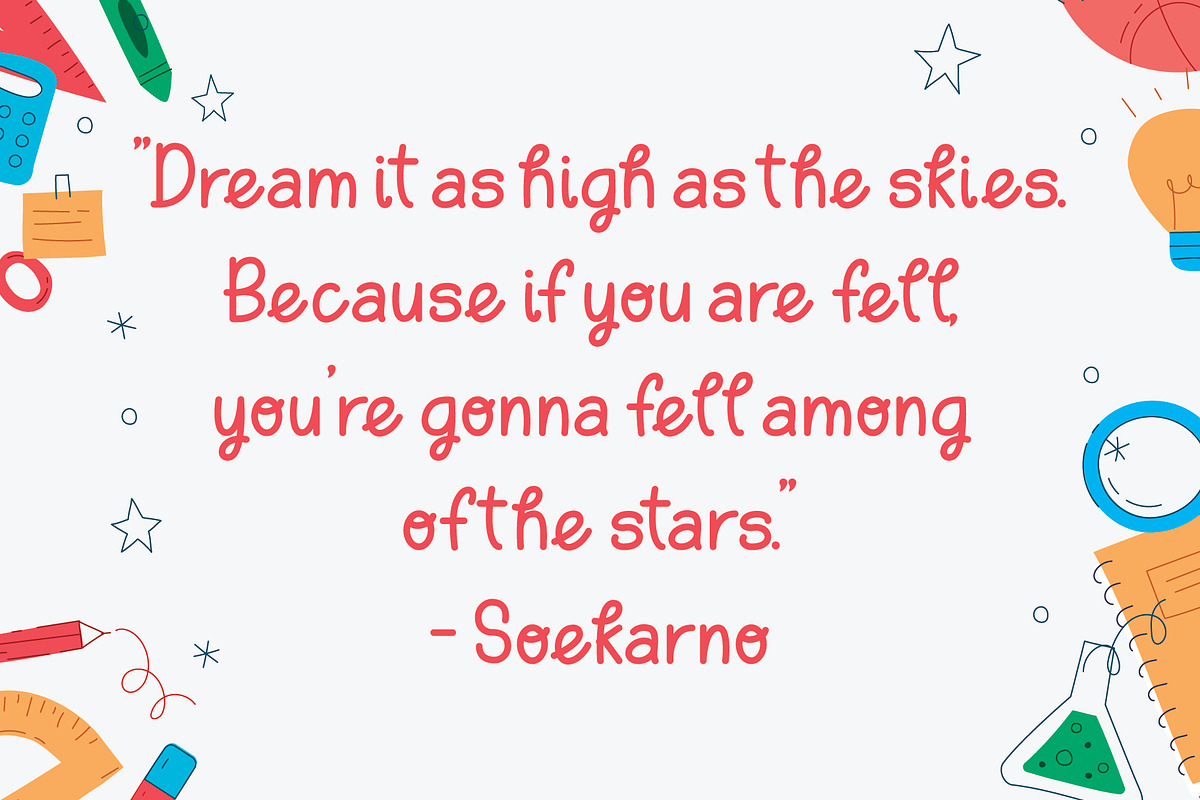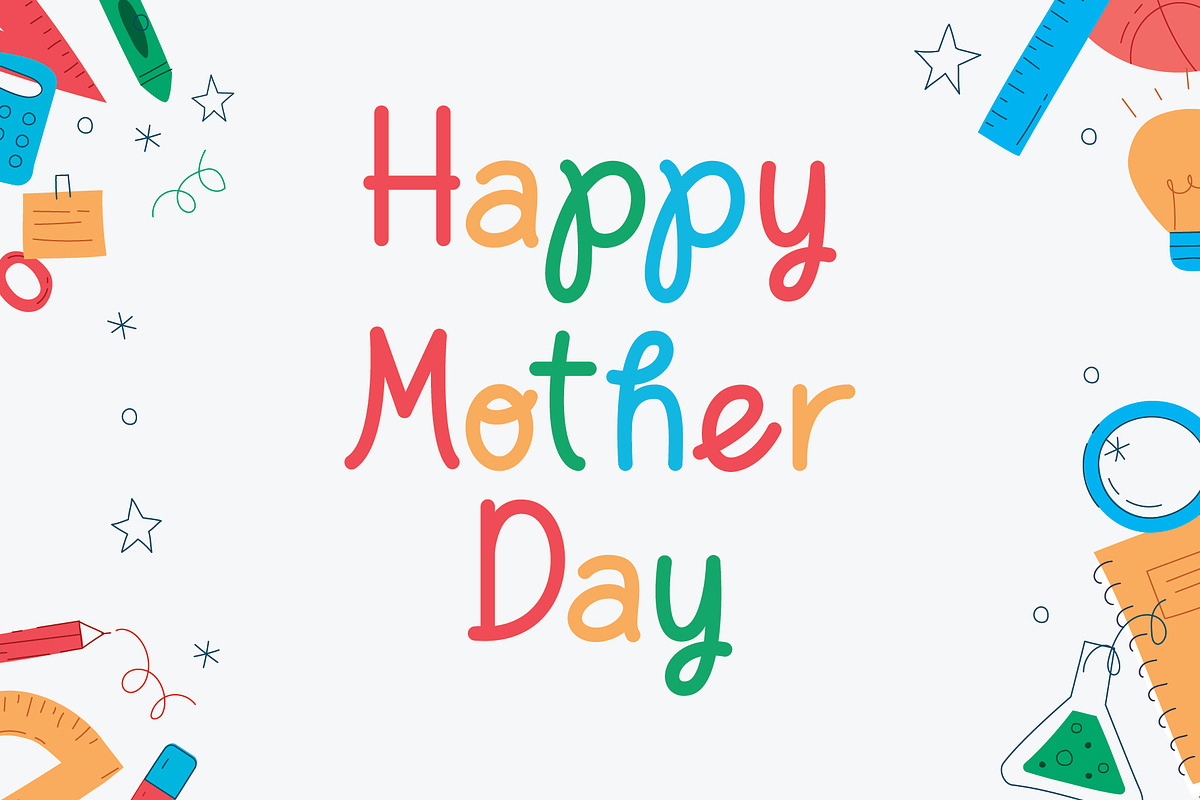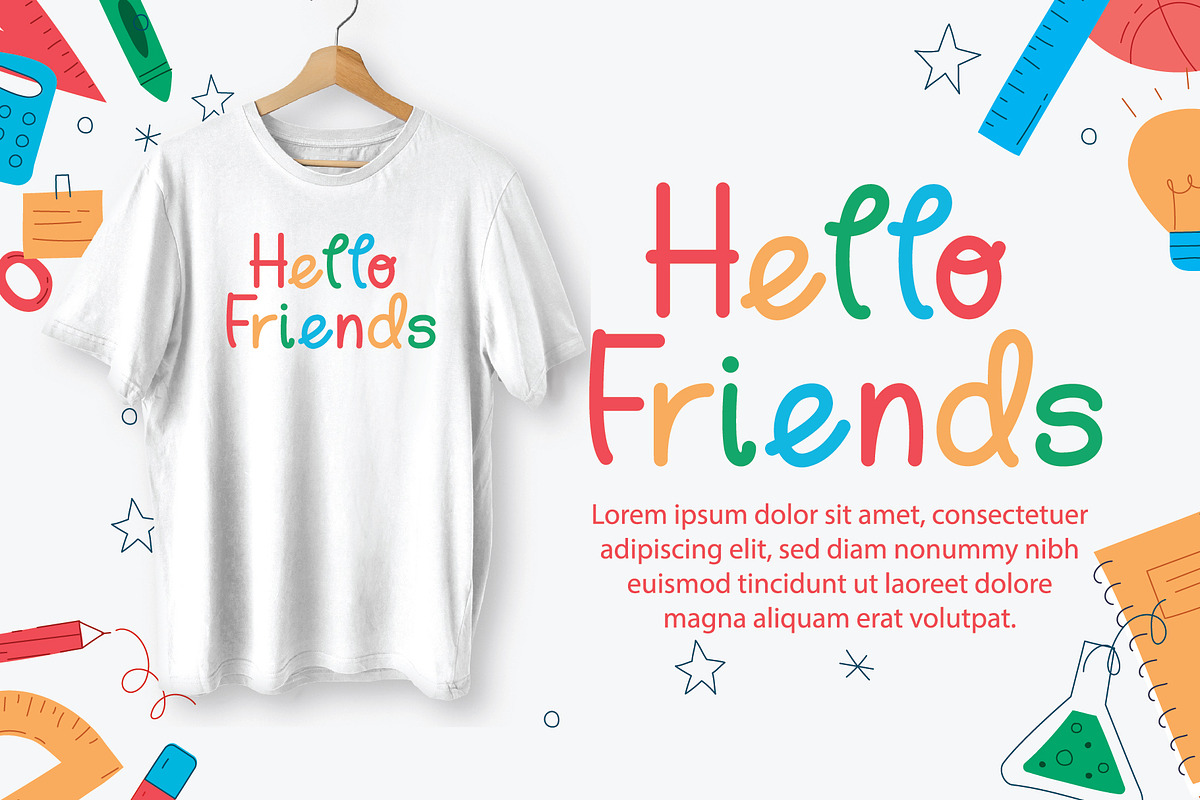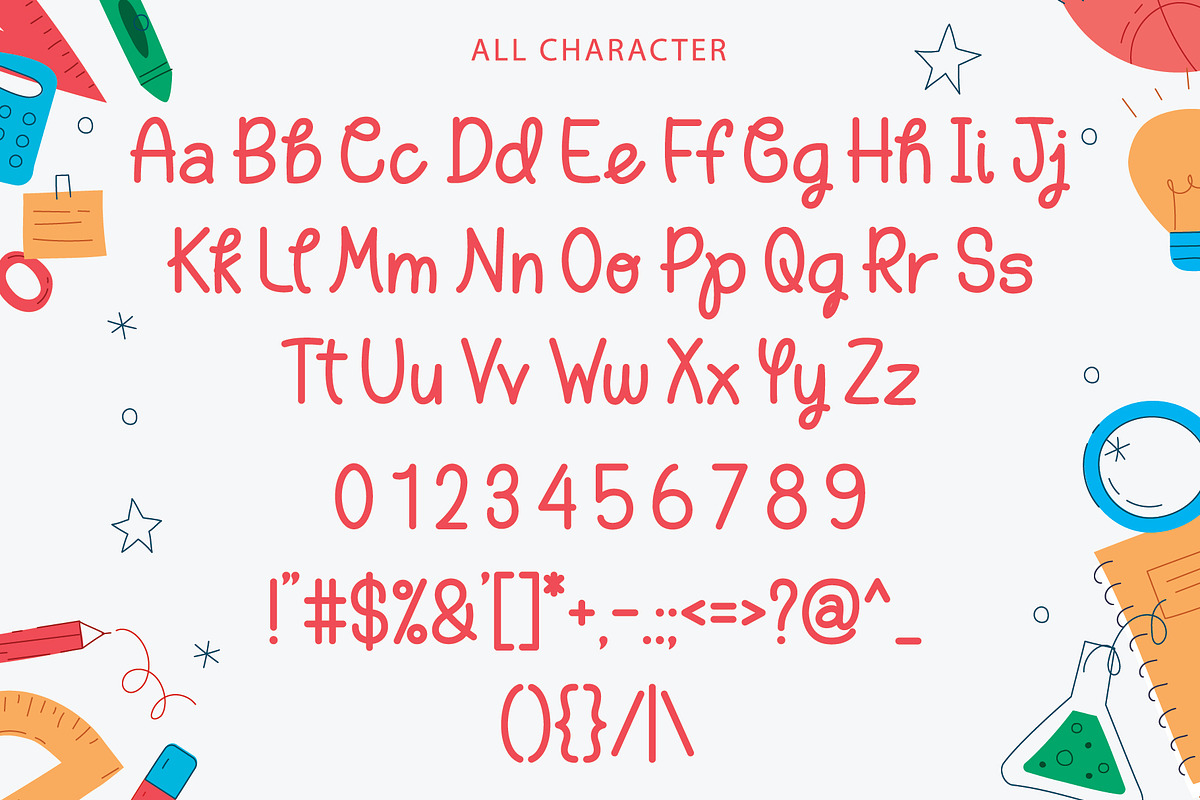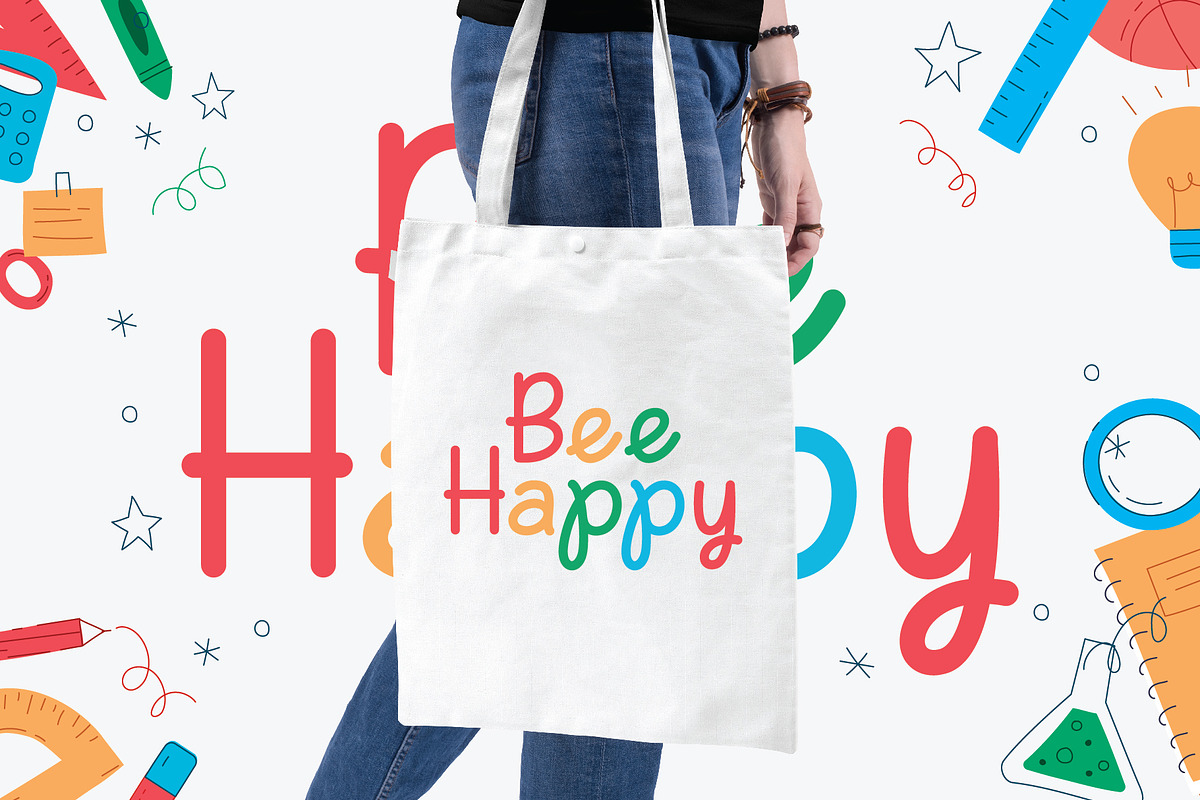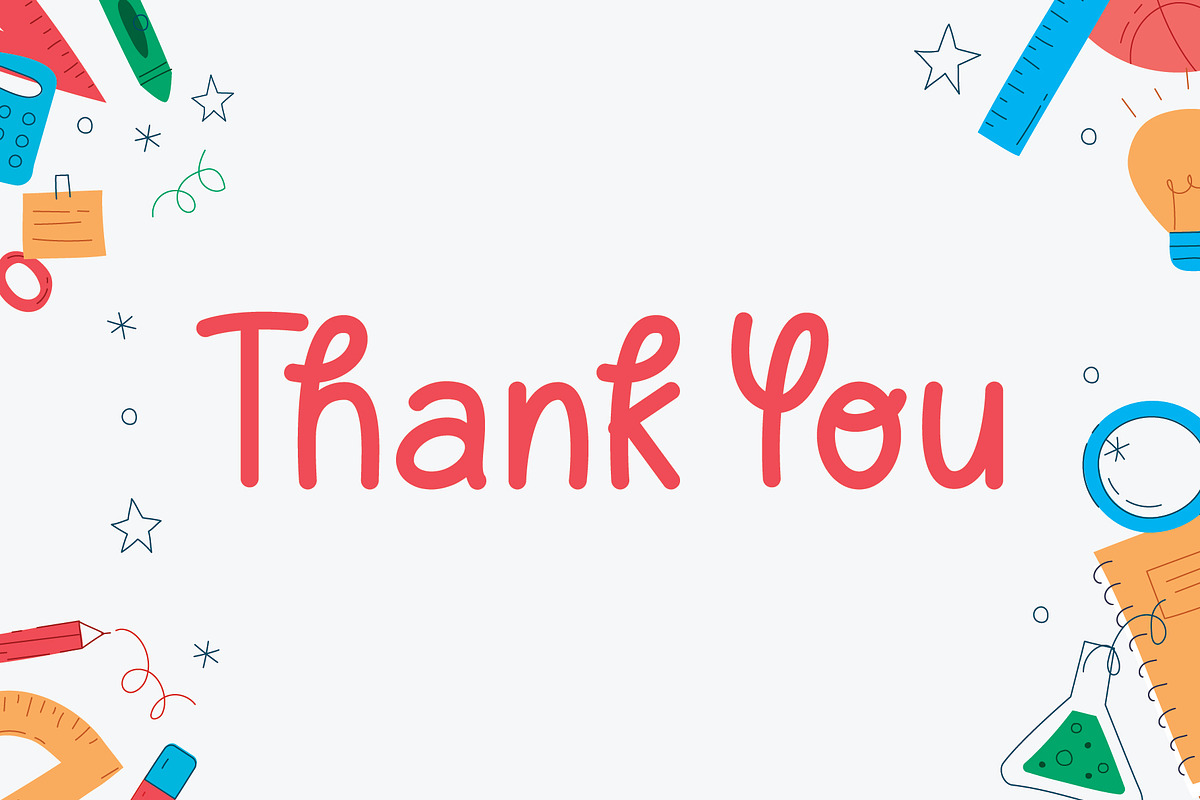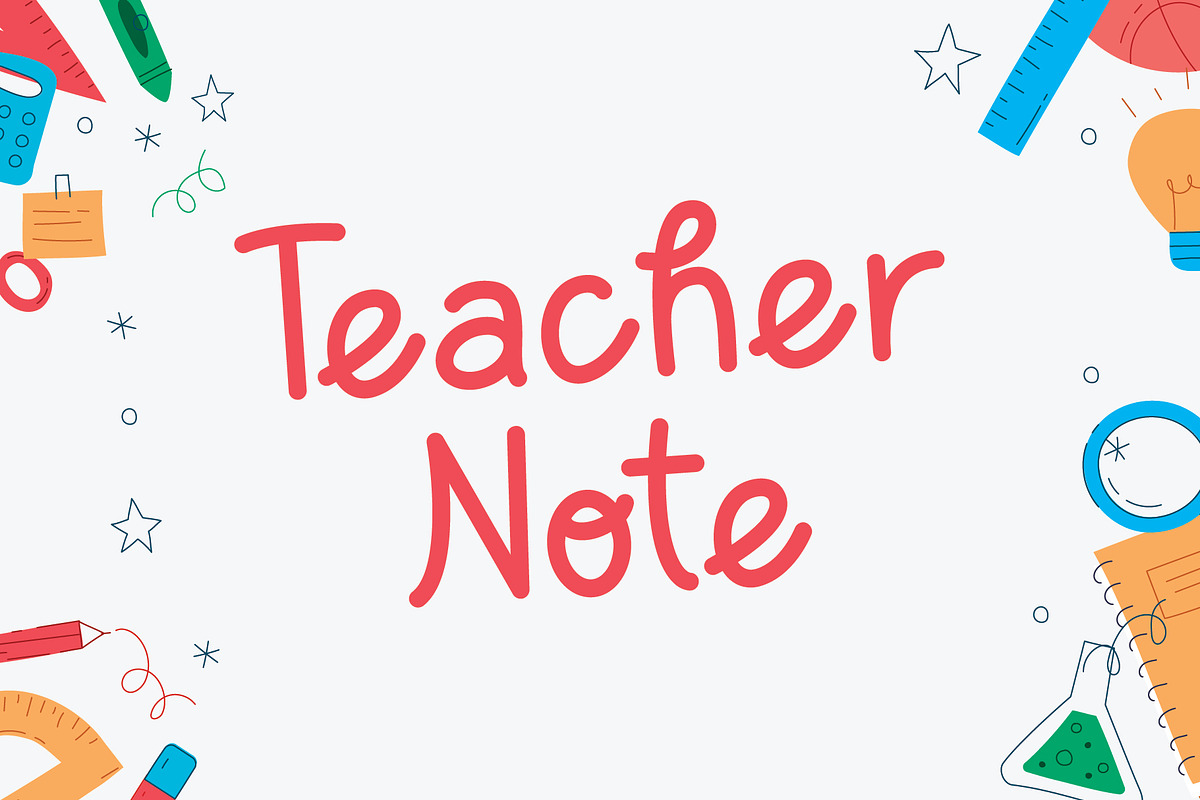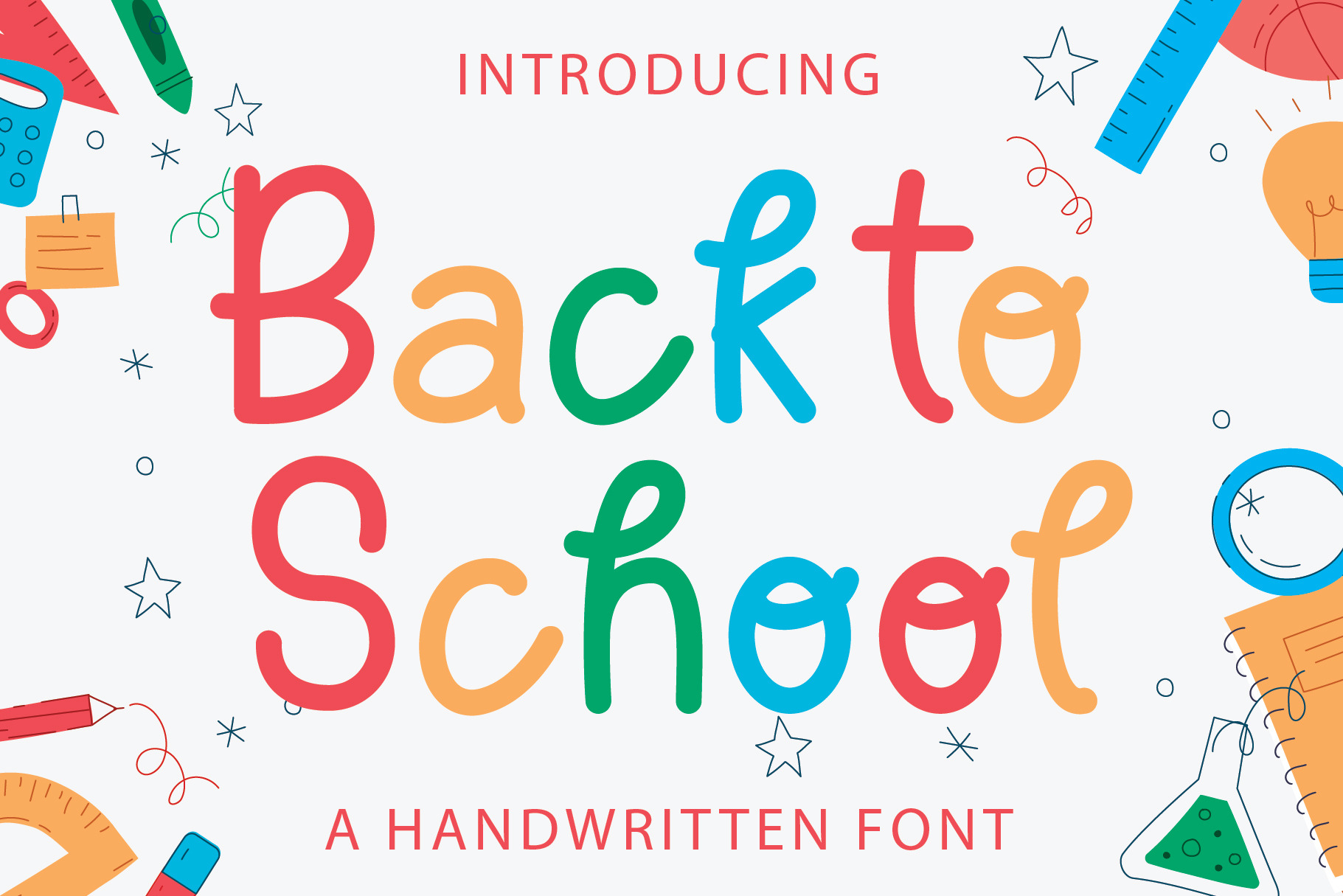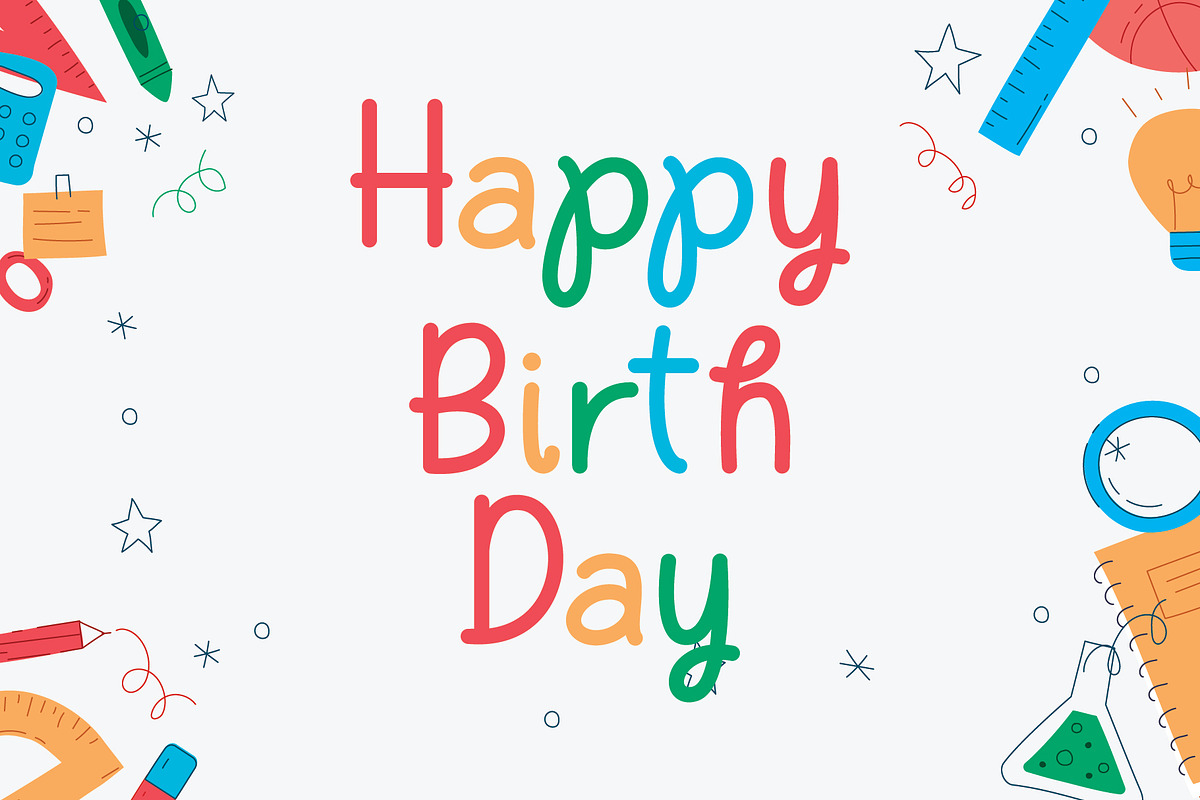
Back To School Monoline Font
Back to School font is a charming and nostalgic script typeface that beautifully captures the essence of handwritten notes. With its playful curves and genuine charm, it evokes a sense of warm nostalgia, making it perfect for projects related to education, creativity, and youthful themes.